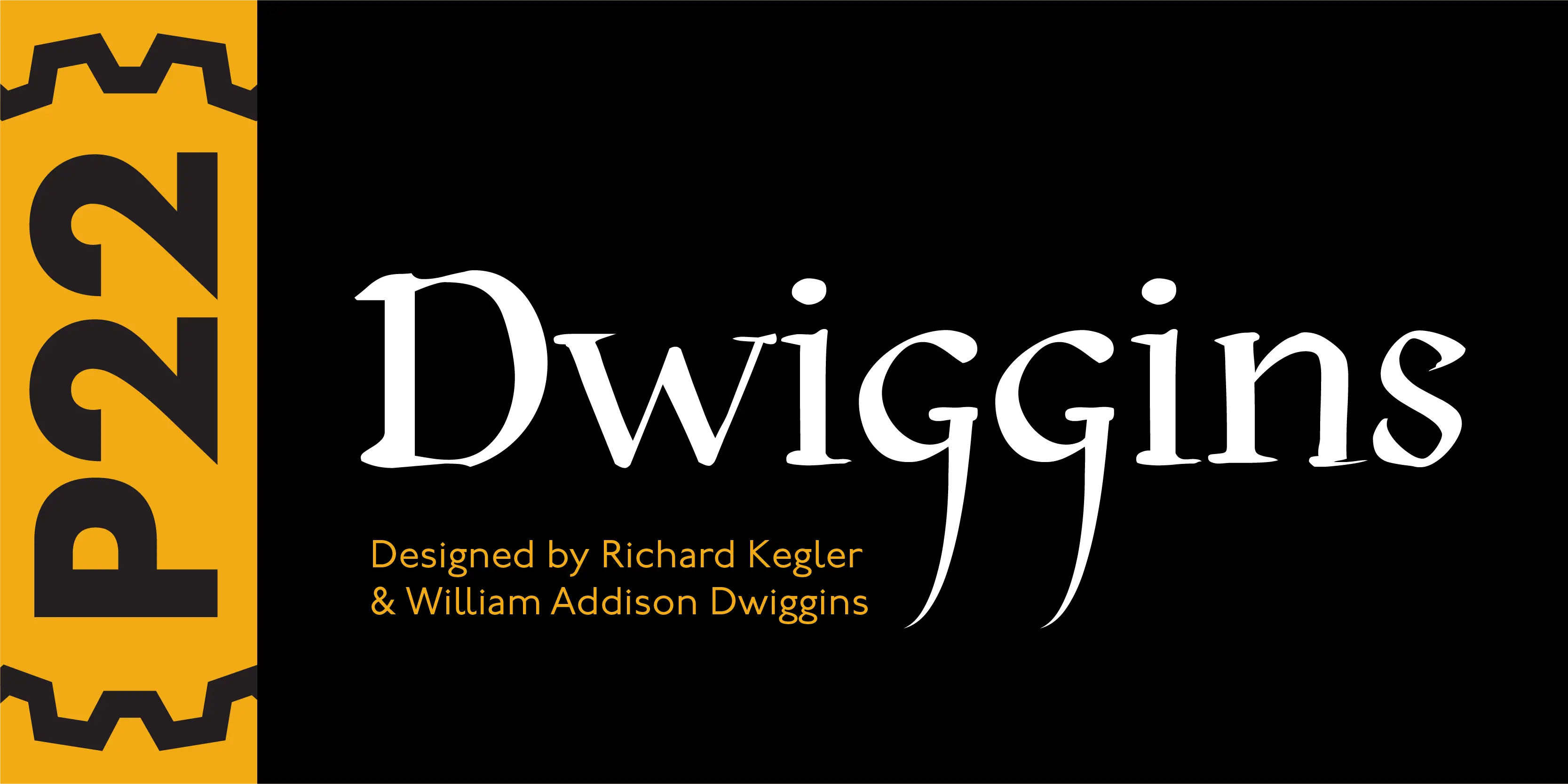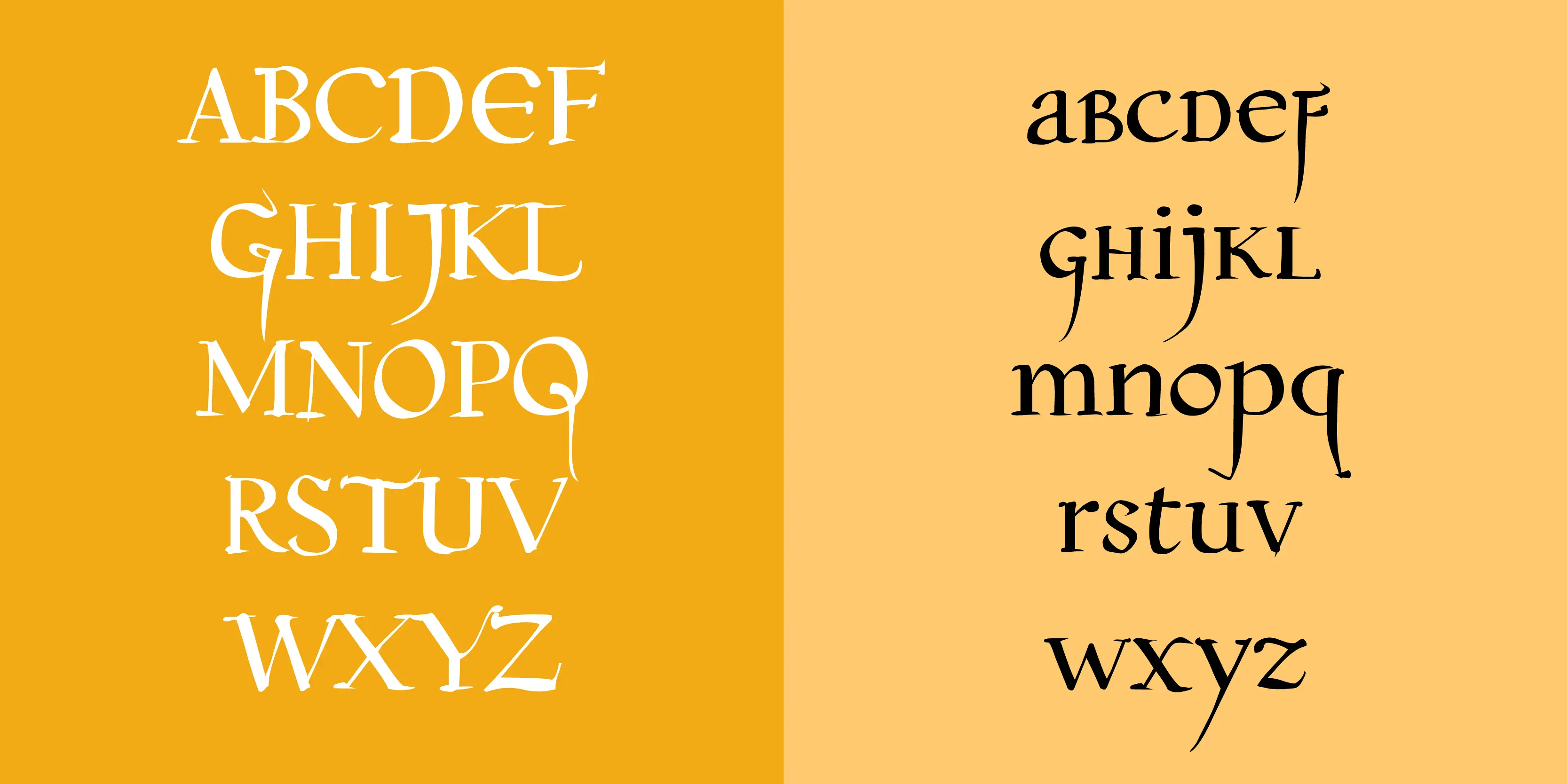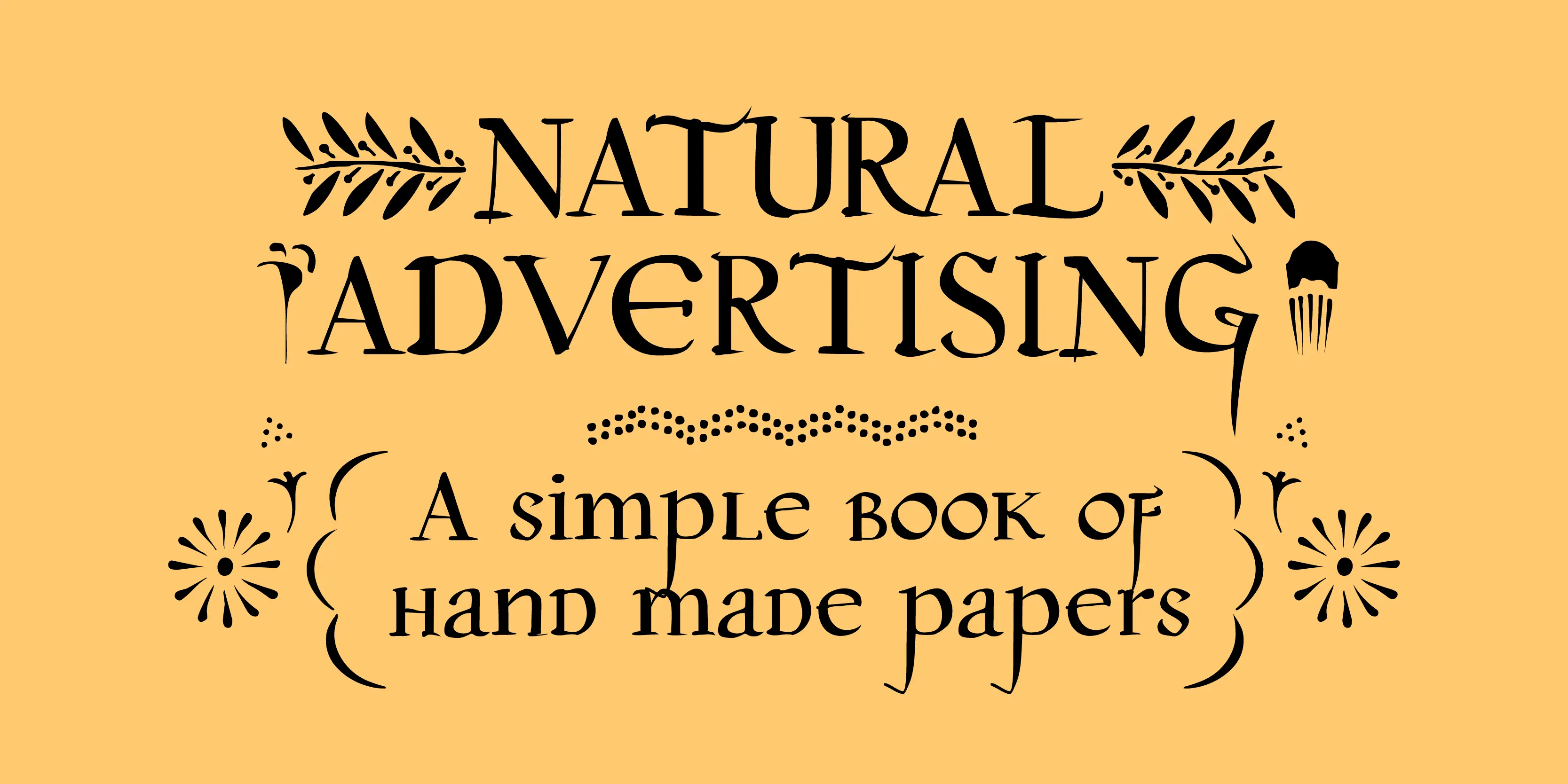
Dwiggins Font Family
Dwiggins
Dwiggins Uncial is based on calligraphy by William Addison Dwiggins that he created for a self-penned short story, which appeared as an insert in the book-arts publication The Dolphin in 1935. This self-described “experimental uncial” lettering features rather unusual treatments of letterforms which combine manuscript calligraphy with modern idiosyncrasies. Dwiggins Extras is a set of decorative extras features 62 stencil and woodblock motifs adapted from abstract and representational Dwiggins designs. Although Dwiggins illustrated a number of books using conventional media, he is best known for his method of illustration that uses a series of Script-cut celluloid stencils or what he called “machine ornaments.” With these stencils Dwiggins (and other designers who use his ornaments) build-up repeated motifs and patterns into abstract designs and/or representational images which have a look that is uniquely Dwiggins’ own. Unlike other illustrators, Dwiggins’ style has not been commonly imitated and therefore his style is as distinctive today as it was 70 years ago.